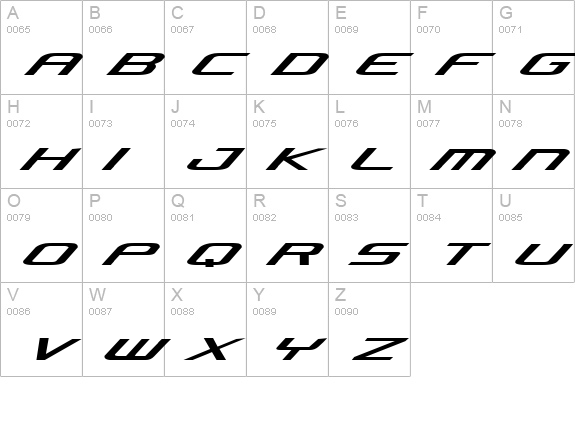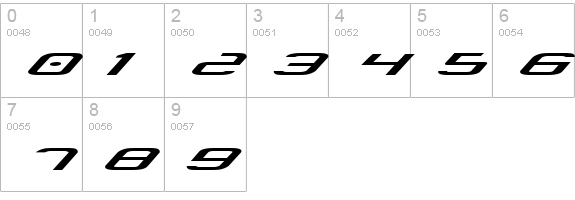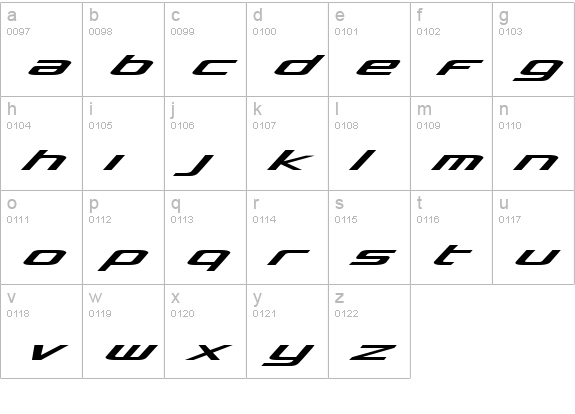
Concielian Expanded is a distinctive, extended-width variant in the Concielian typeface family \xE2\x80\x94 well suited to design and typography projects.
Concielian Expanded is a stunning and versatile display font that exudes elegance and sophistication. With its elongated and graceful letterforms, this typeface is perfect for adding a touch of class to any design project. The wide spacing and clean lines of Concielian Expanded make it easy to read and ideal for headlines, logos, and branding materials. One of the best things about Concielian Expanded is that it is completely free to download. You can easily access this beautiful font at FontsMarket.com and start using it in your projects right away. Whether you're working on a website, a poster, a business card, or any other design, Concielian Expanded is sure to make a bold statement and elevate your work to the next level. Download it today and see the difference it can make in your designs!